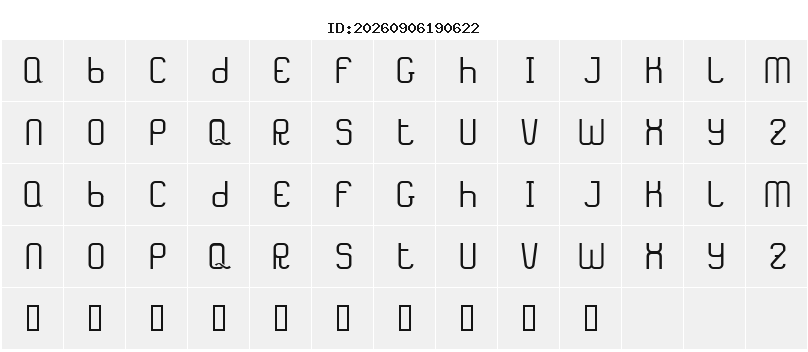
• Font Name: TF_Karma
• Full Font Name: TF_Karma
About TF_Karma.ttf
TF_Karma.ttf is a modern, elegant sans-serif font designed for ultimate readability and visual harmony. Perfect for branding, headlines, web design, and print materials.